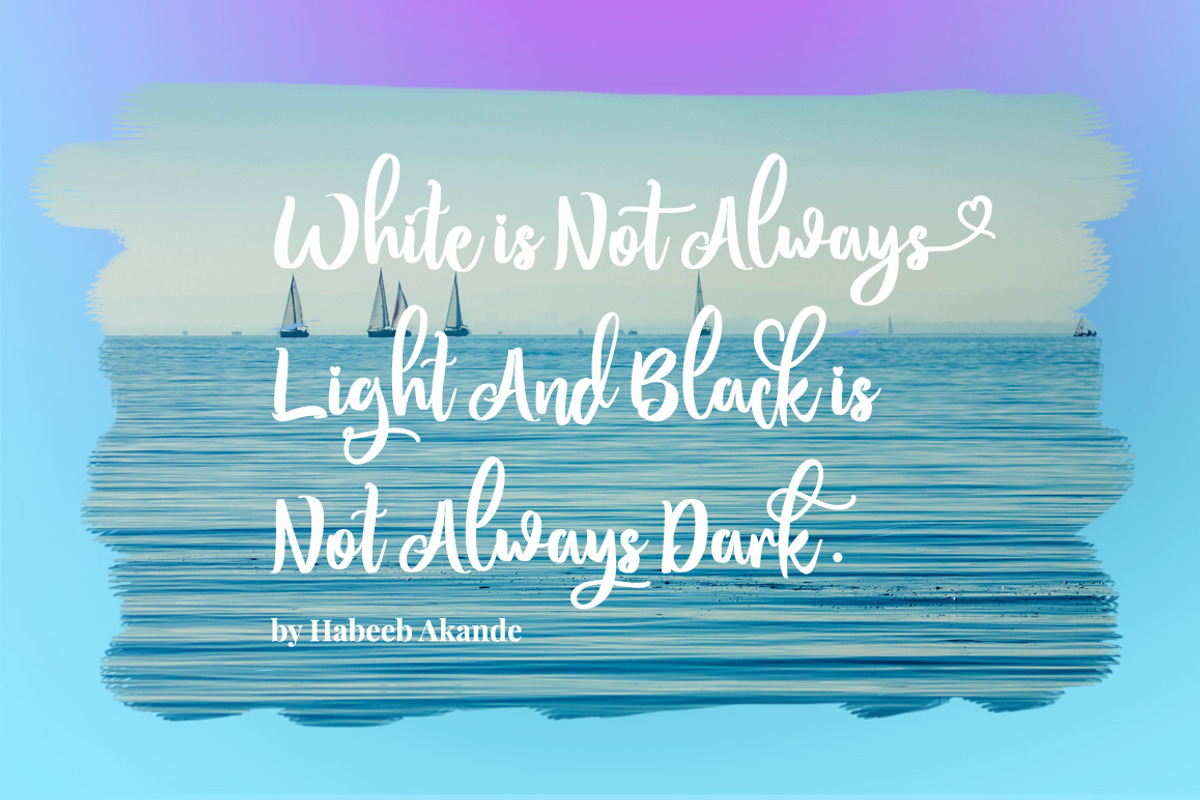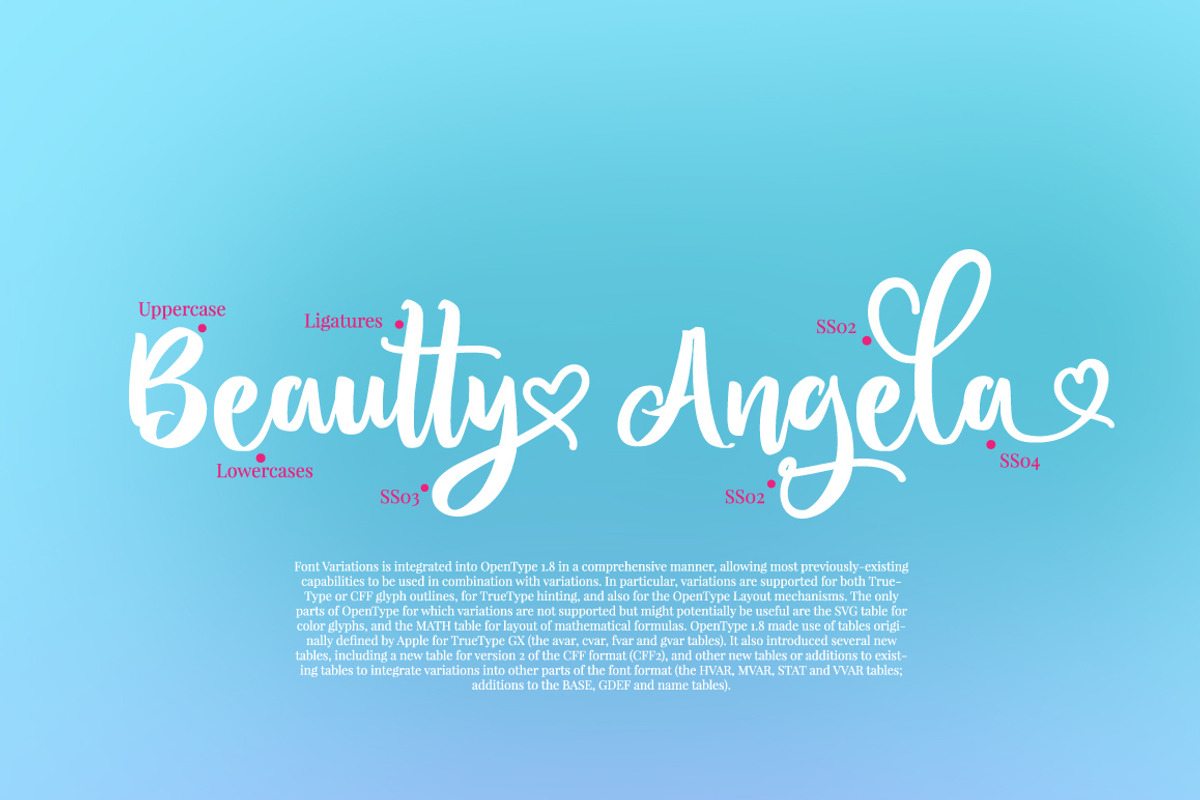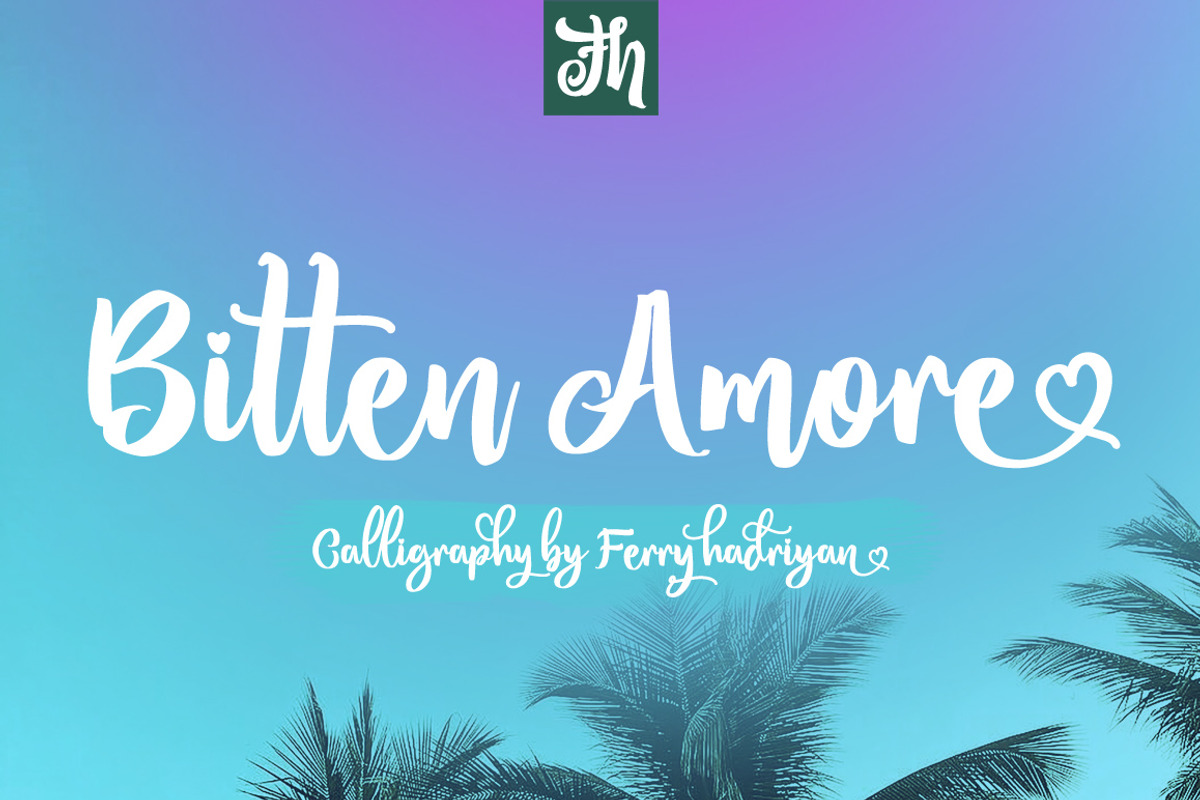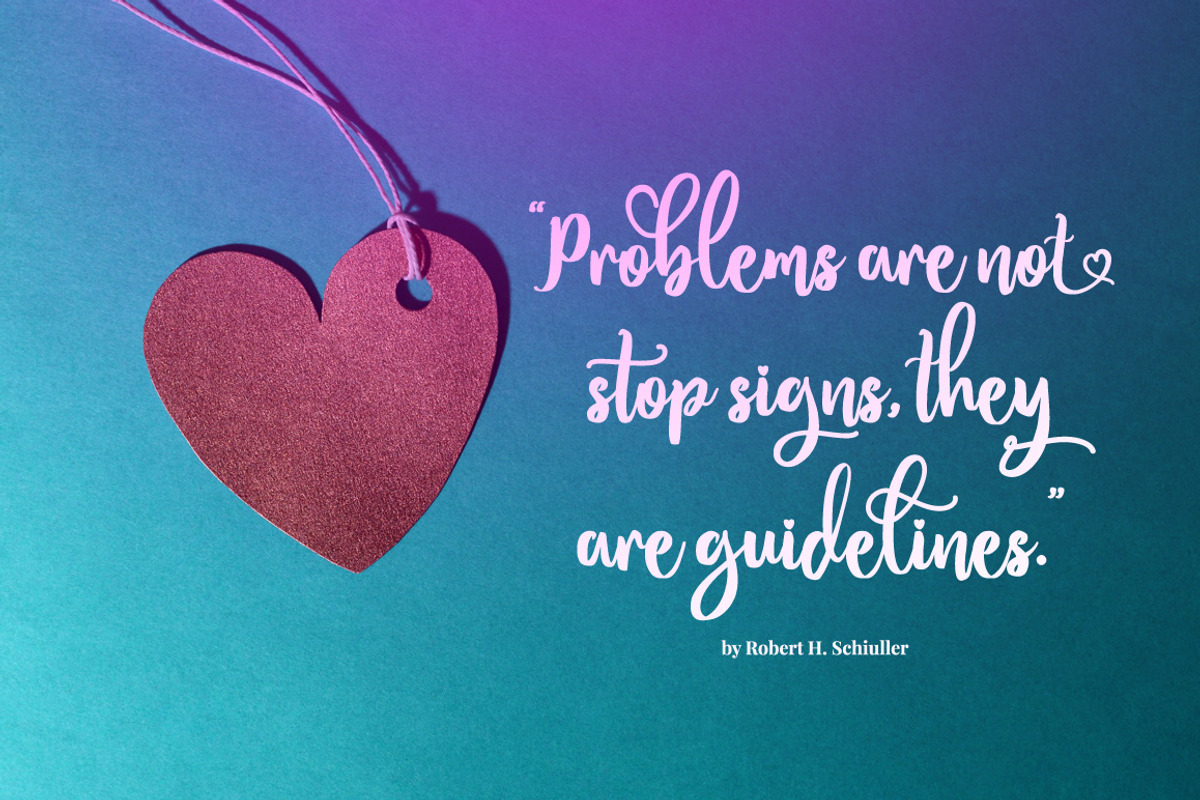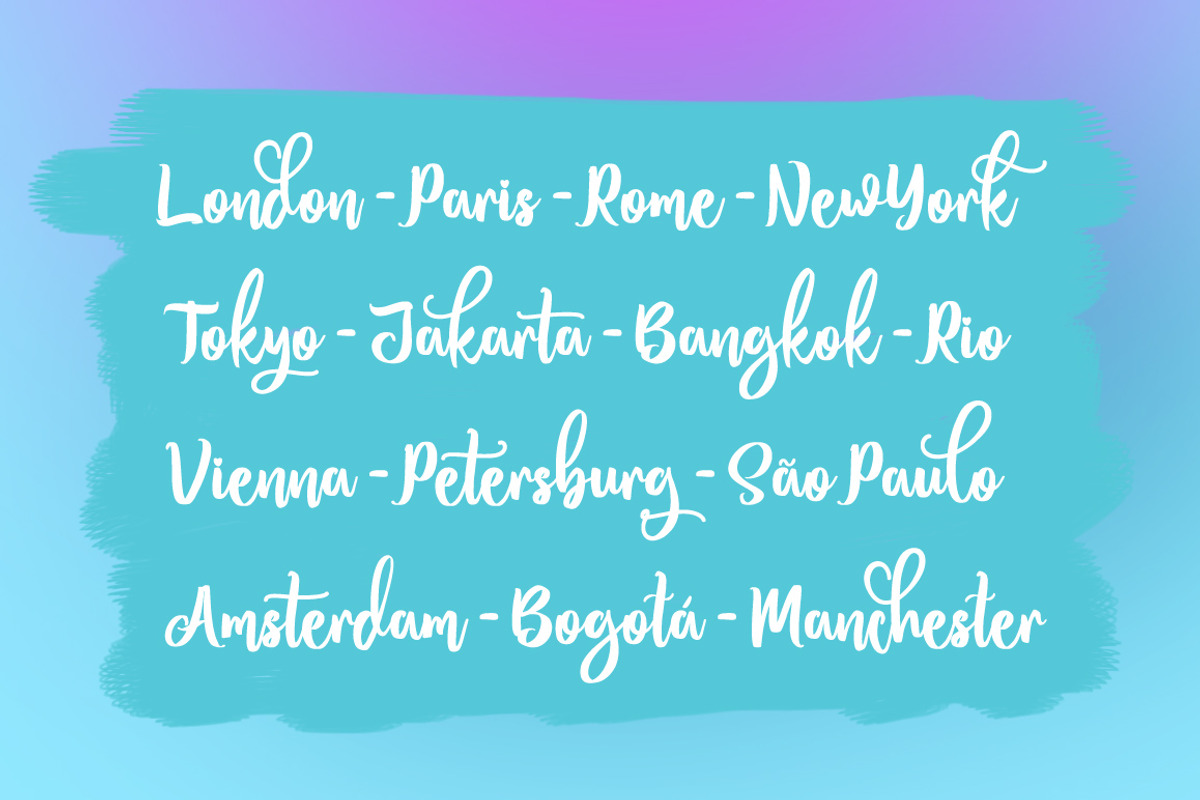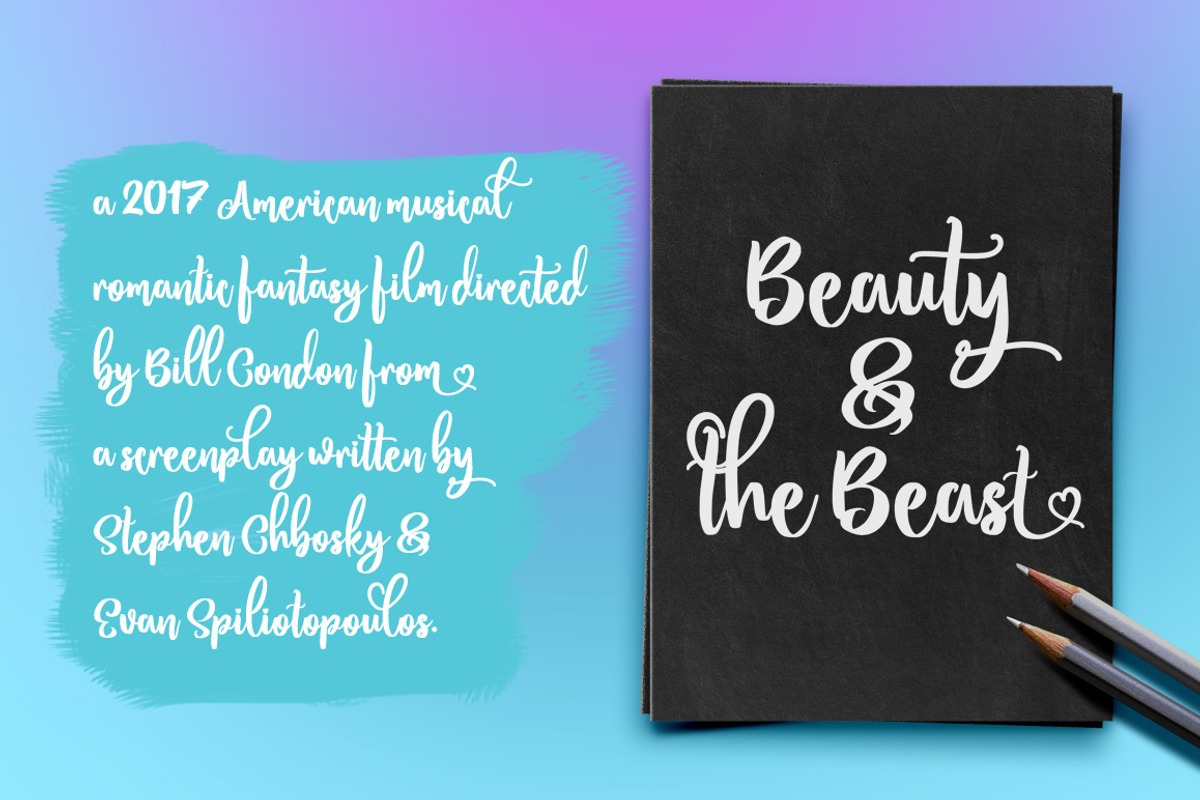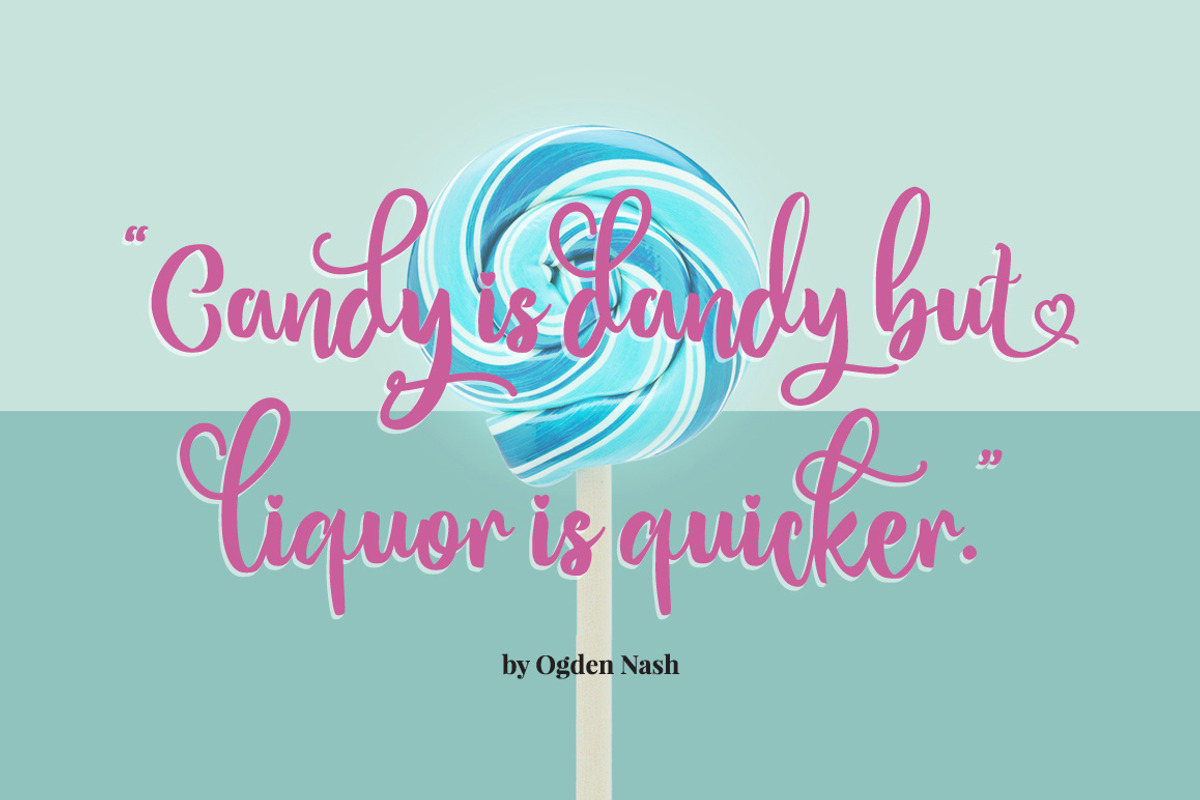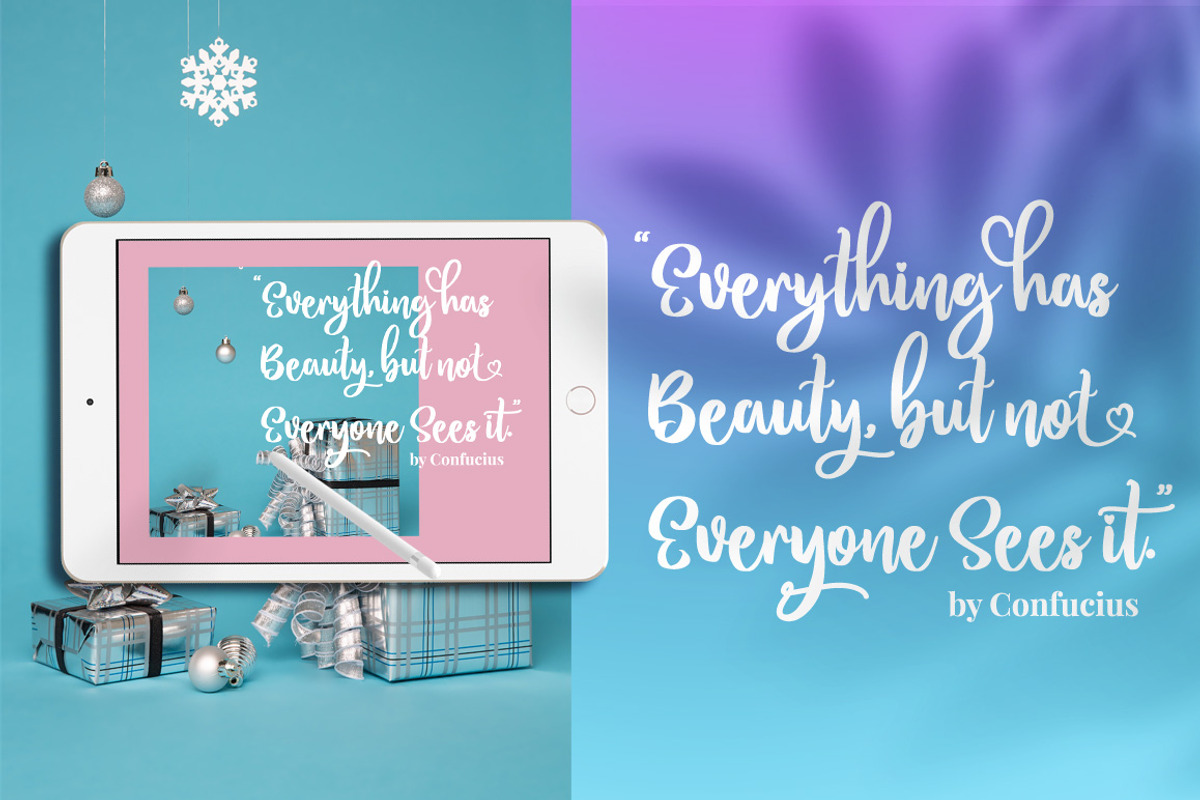
Bitten Amore - Script Font
Bitten Amore is Script Font with Handlettering Brush Style, with opentype feature include of the font. Suitable for design, element design, wedding, event, t-shirt, logo, badges, sticker, and awesome work, etc...
Open Type Features Fonts
Bitten Amore - Script Font by FHFont fits naturally into Branding, posters, packaging, typography.